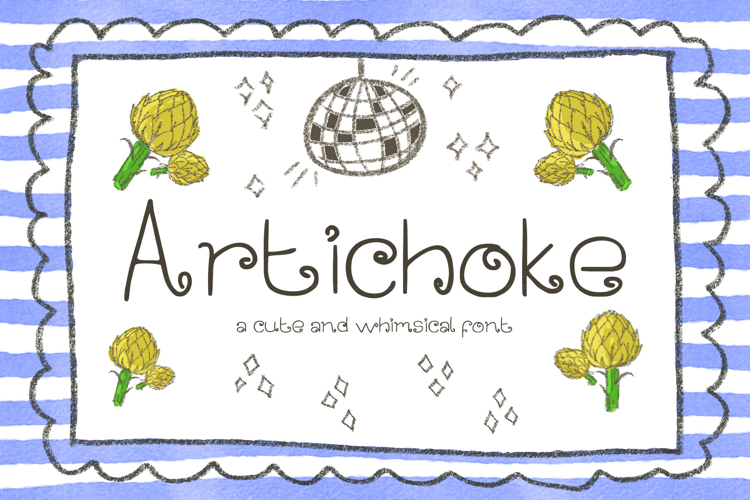
Meet Artichoke, a delightful display font designed to bring a touch of magic, whimsy, and organic charm to your creative projects. Characterized by its unique, artistic curls and custom curls/swirls integrated into every single letter, Artichoke perfectly balances playful energy with elegant sophistication.
Inspired by nature's intricate layers, this typeface feels alive, creative, and full of personality. Whether you are designing for children, creating a fantasy book cover, or building a cozy brand identity, Artichoke adds an instant handcrafted aesthetic.